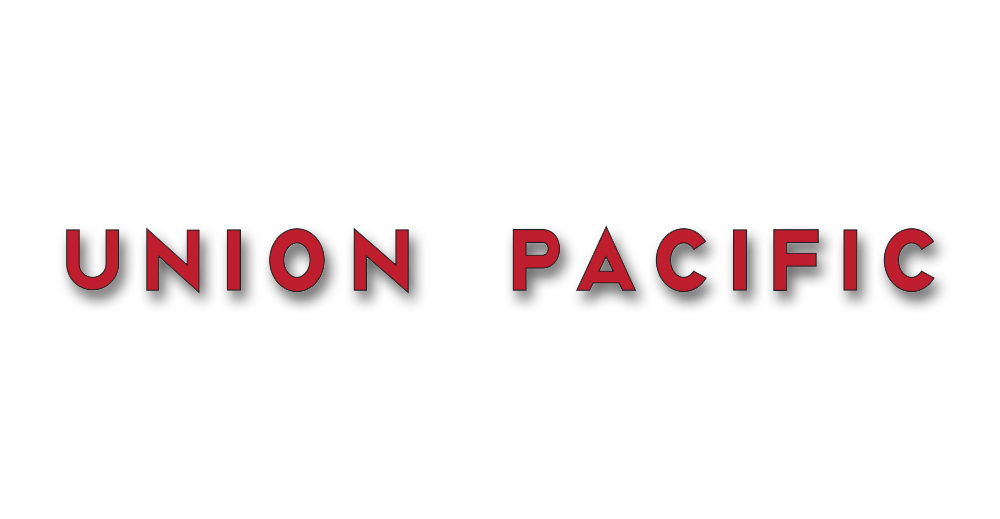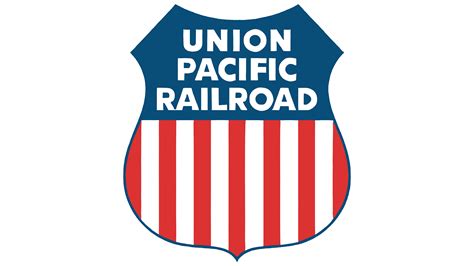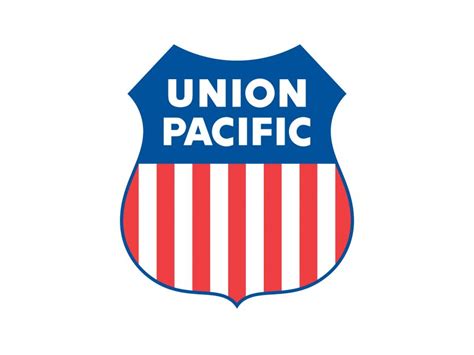
Union Pacific Font
Union Pacific Font - Union pacific brand identity program tcs user id and password required. Web the font used for union pacific railroad logo is futura bold, a geometric sans serif font designed by paul renner and published by.